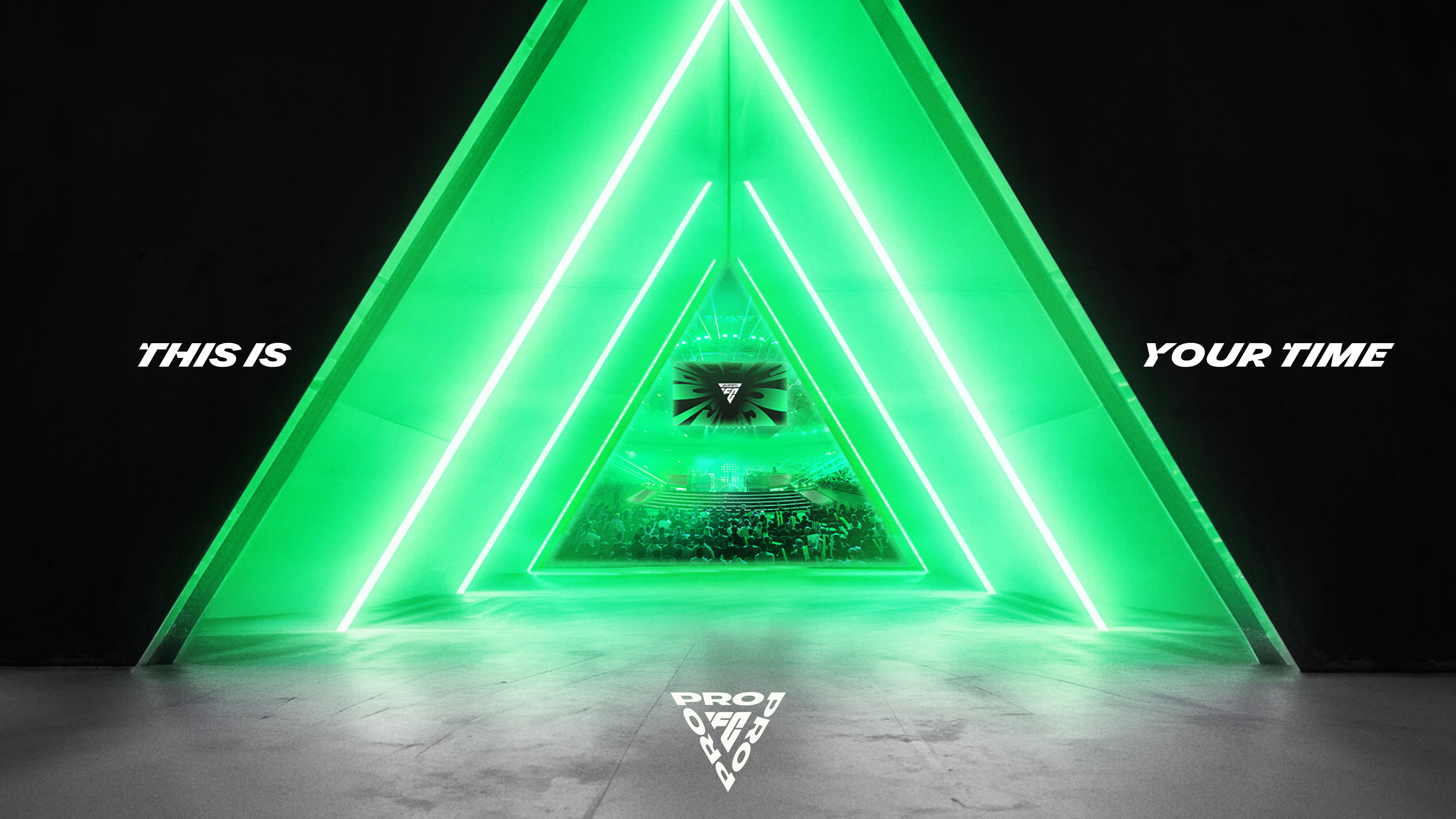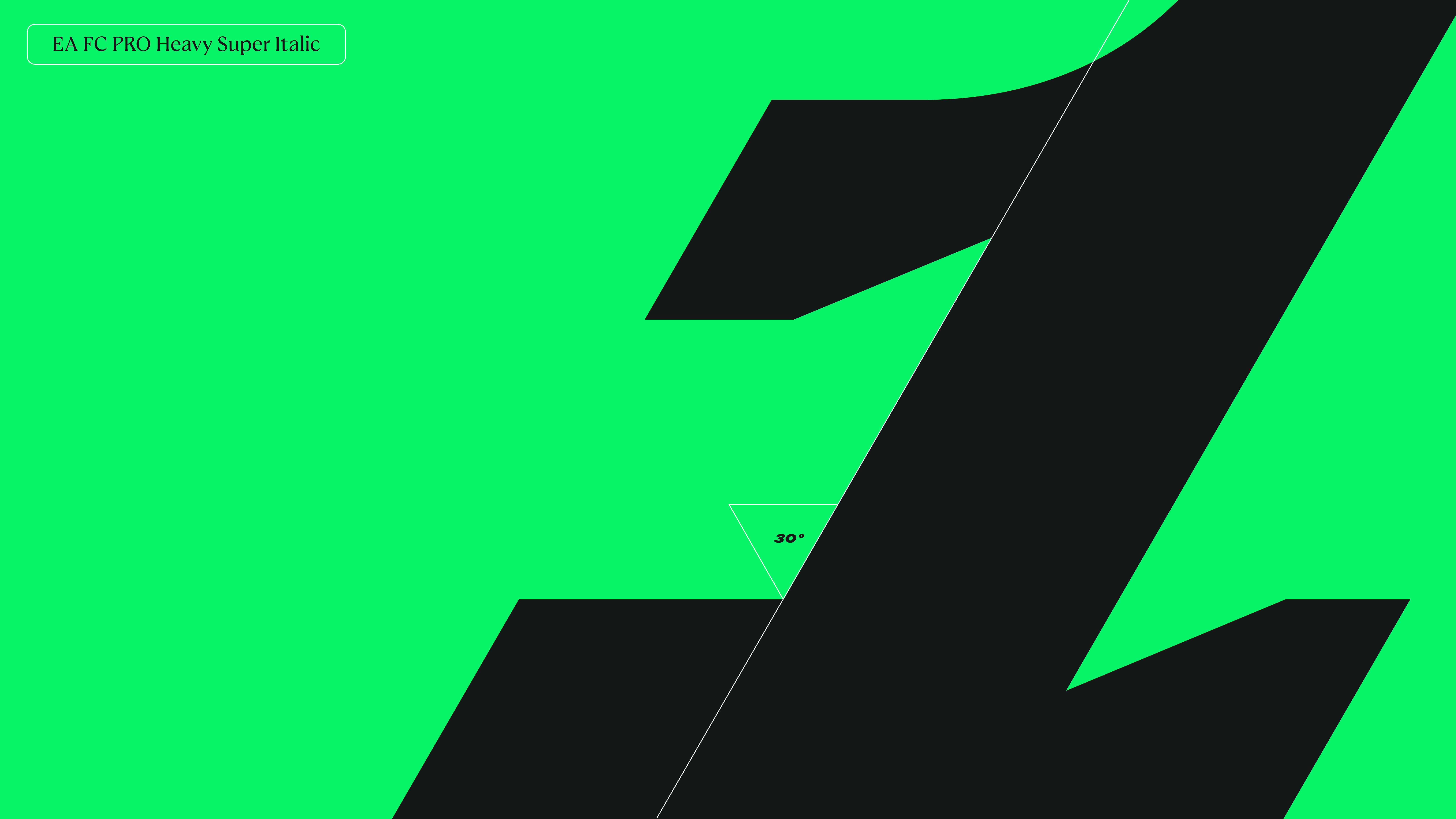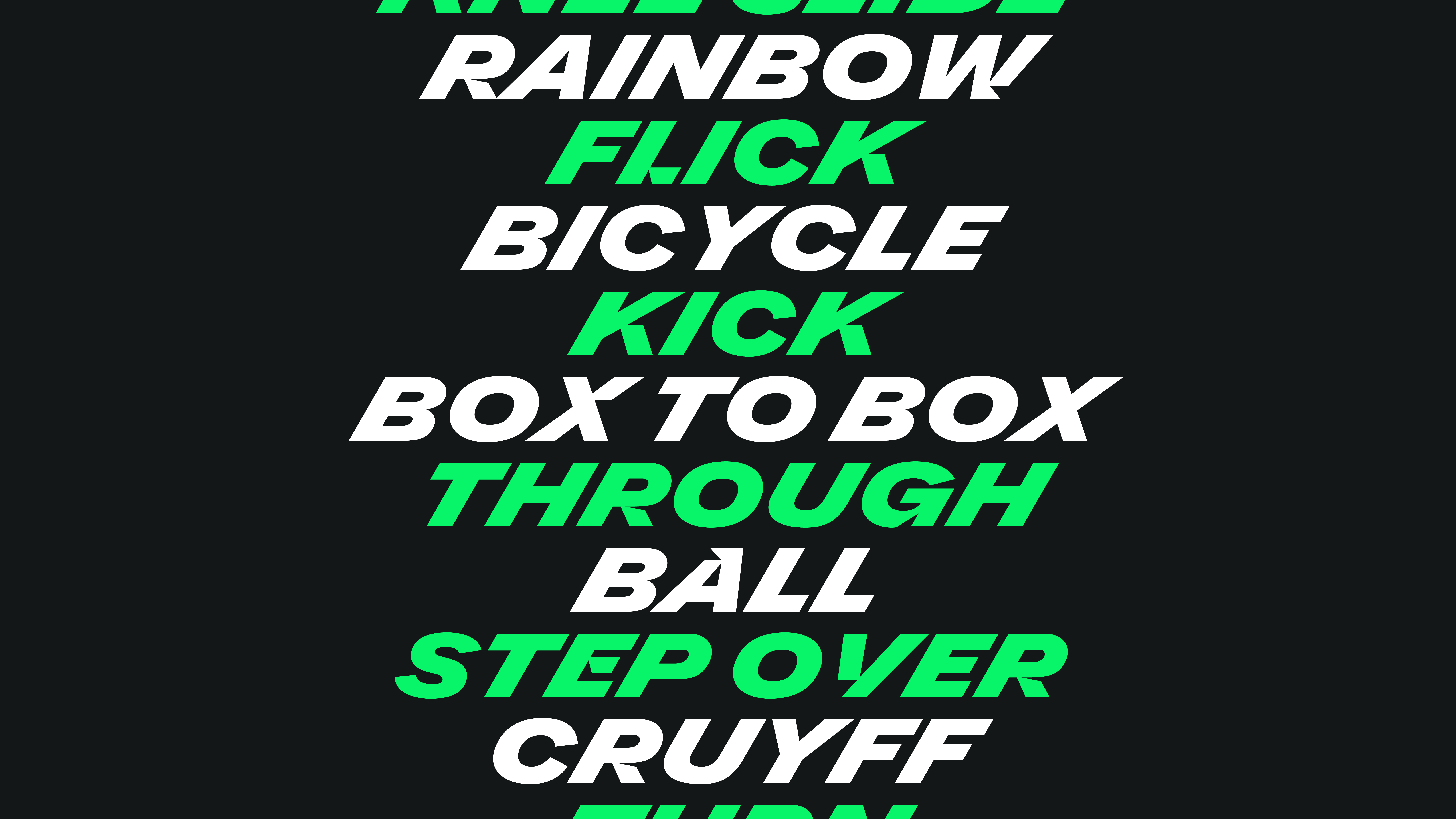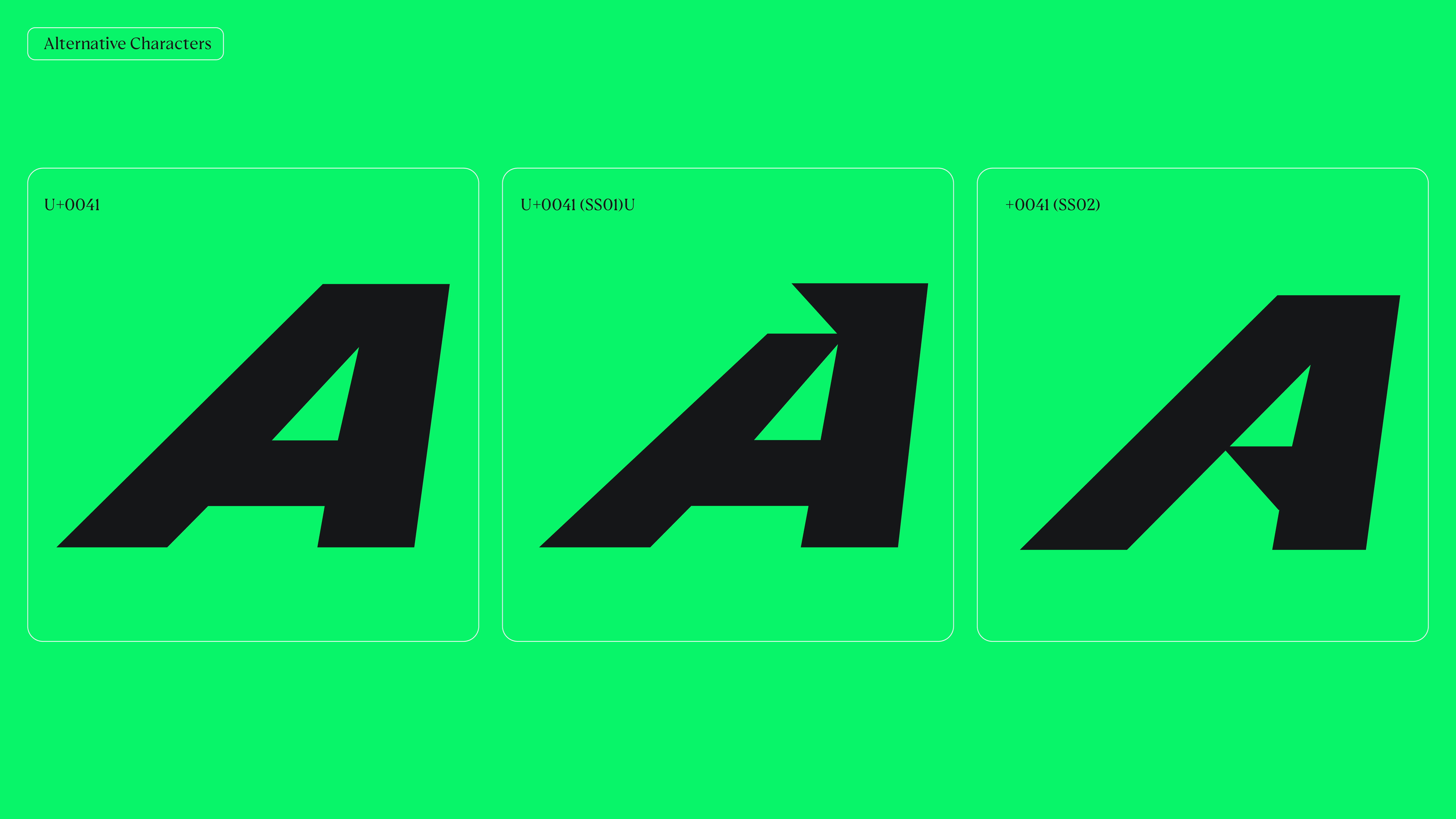
This caffeine-fuelled modification of EA FC Cruyff now has an all-new meta to keep pace with EA FC PRO, the home of the biggest esports competitions.
FC PRO is the professional league of EA SPORTS FC™, featuring over 50,000 of the world’s top players from across the globe, all competing for a chance to qualify for the first-ever FC PRO World Championships. The ultimate goal is to be named the best player of their generation and take home the $1 million prize.
F37® was an exceptional partner in crafting the font for FC PRO. They captured our vision perfectly, modifying the custom font they created for EA Sports FC while giving FC PRO its own unique typographic identity. Their ability to balance consistency with originality was impressive.
Design Studio was tasked with developing a dynamic and distinctive brand for FC PRO, ensuring the professional competition had its own unique identity.
In collaboration with Design Studio, we designed a custom headline font specifically for FC PRO. The challenge was to create something original for FC PRO that would still complement the fonts we had previously developed for EA Sports FC. We achieved this by modifying Cruyff Sans Heavy Italic, one of the EA Sports FC fonts we’d developed previously. Modifications included doubling the original slant from 15° to 30°, cutting angles so they perfectly align with the iconic FC triangle, and creating a whole range of extra-characterful alternates.